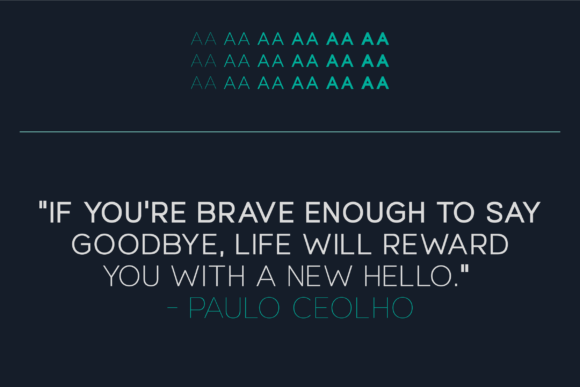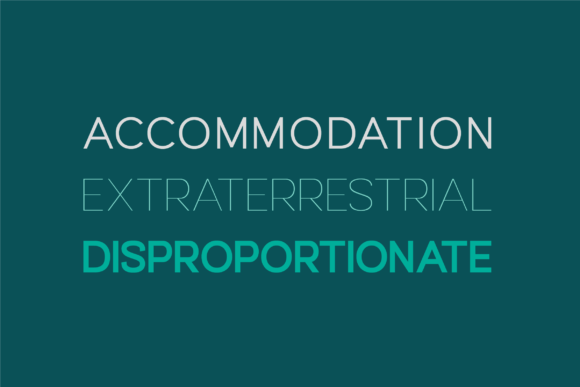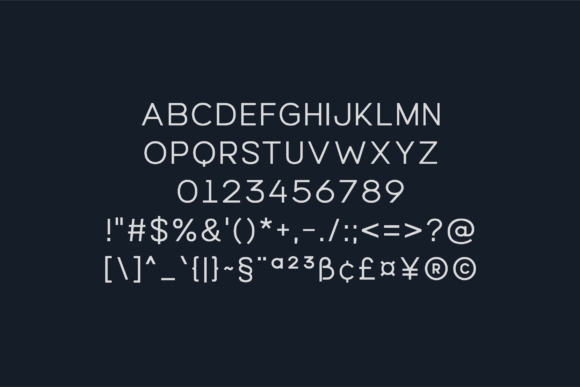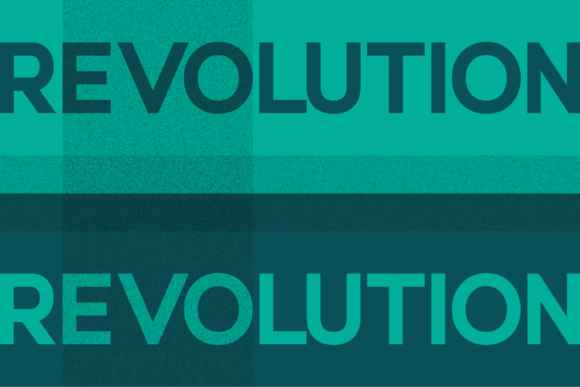
Crafter Dreams Font: Elevate Your Designs with Elegance and Minimalism
In the world of design, typography plays a crucial role in conveying the message and aesthetic of a project. A well-crafted font can elevate a design from ordinary to extraordinary, making it a vital tool for designers and crafters alike. Introducing the Crafter Dreams font family, a stunning collection of sans serif fonts that embodies elegance and minimalism. With 6 distinct weights, this versatile font family seamlessly combines modernity and luxury, making it perfect for a wide range of design applications.
The Essence of Crafter Dreams Font
The Crafter Dreams font family is a masterful blend of sophistication and simplicity. Crafted with utmost precision, each font in the collection has been designed to effortlessly enhance any project, whether it be a magazine, logo, or film poster. The clean lines, subtle curves, and carefully considered letterforms come together to create a truly timeless design that exudes elegance and refinement.
Key Features of Crafter Dreams Font
• 6 Distinct Weights: The Crafter Dreams font family offers 6 distinct weights, ranging from light to bold, allowing designers to choose the perfect weight to suit their project’s needs.
• Sans Serif Design: The clean, sans serif design of Crafter Dreams makes it perfect for a wide range of applications, from digital media to print.
• Modernity and Luxury: The font family’s sleek, modern design aesthetic makes it perfect for luxury brands, high-end products, and sophisticated designs.
• Timeless Charm: The Crafter Dreams font family has been designed to stand the test of time, with a classic design that will remain relevant for years to come.
Applications of Crafter Dreams Font
The Crafter Dreams font family is incredibly versatile, making it suitable for a wide range of design applications. Some examples include:
• Magazines and Editorials: The elegant design of Crafter Dreams makes it perfect for magazine and editorial design.
• Logo Design: The font family’s clean lines and sophisticated design make it ideal for logo design.
• Film Posters: The bold, eye-catching design of Crafter Dreams makes it perfect for film posters and other promotional materials.
• Digital Media: The font family’s sans serif design and clean lines make it perfect for digital media, including websites, social media, and more.
Unlock the Power of Crafter Dreams Font
With the Crafter Dreams font family, designers and crafters can unlock a world of creative possibilities. Whether you’re looking to create a sophisticated brand identity, a stunning magazine layout, or a bold film poster, this versatile font family has got you covered. So why wait? Discover the perfect balance of sophistication and simplicity, and elevate your designs to new heights with the Crafter Dreams font family.
In conclusion, the Crafter Dreams font family is a truly exceptional design tool that embodies elegance and minimalism. With its 6 distinct weights, sans serif design, and timeless charm, this versatile font family is perfect for a wide range of design applications. Whether you’re a designer, crafter, or simply someone who appreciates great design, the Crafter Dreams font family is sure to inspire. So why not unlock the power of Crafter Dreams today and take your designs to the next level?